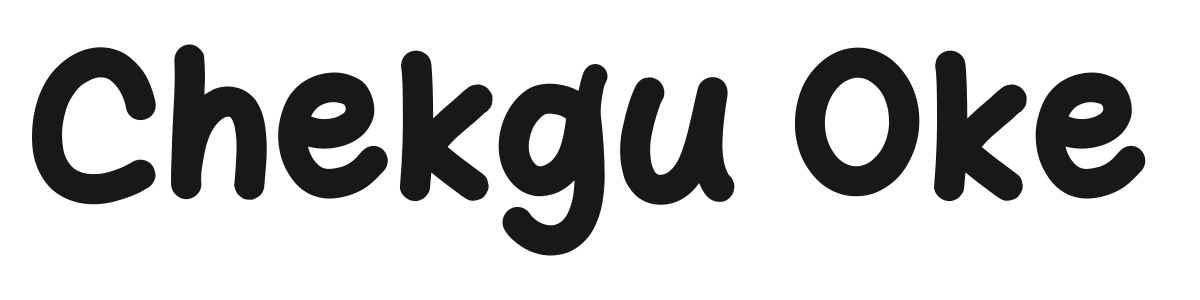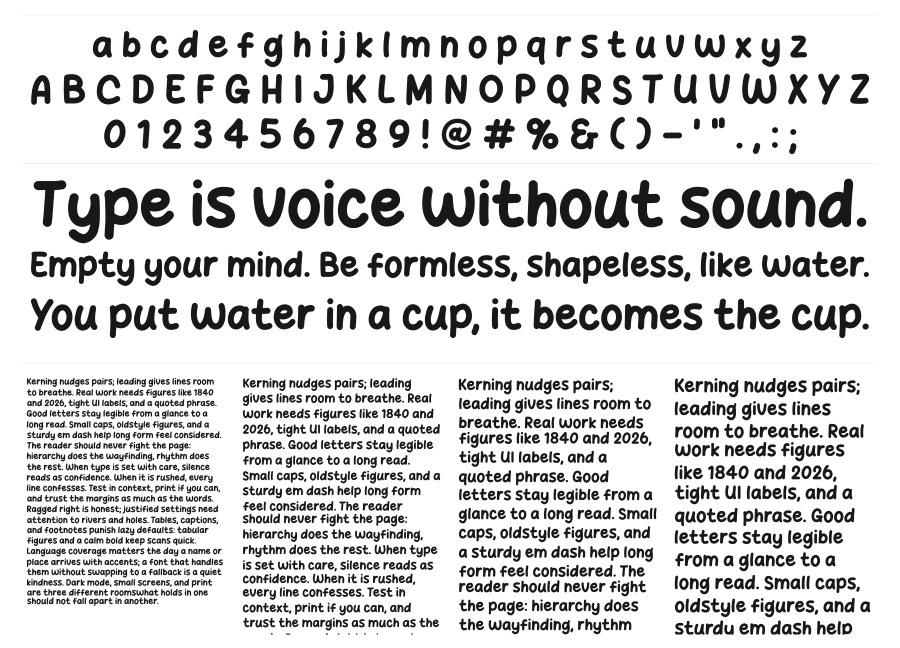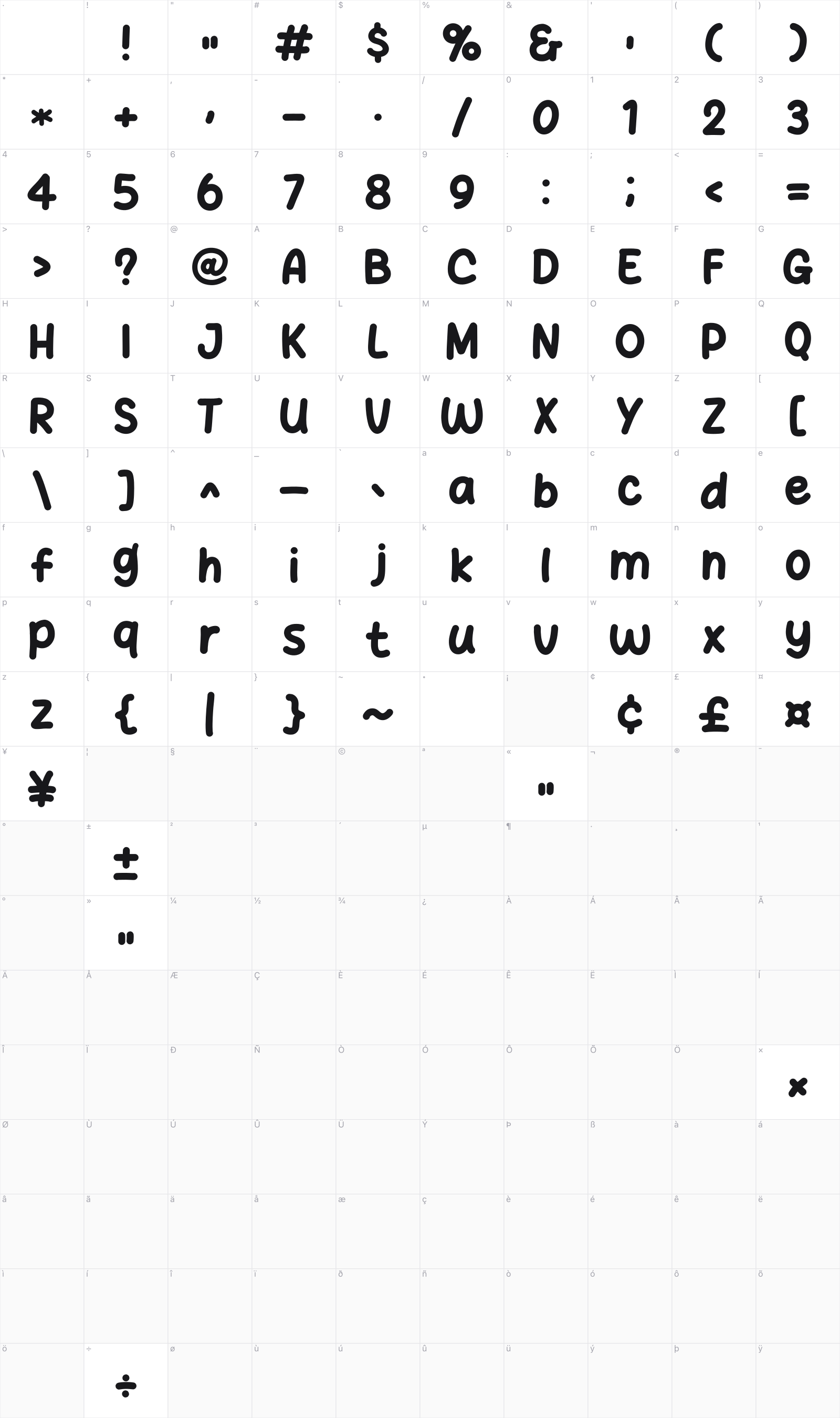
Chekgu Oke
Chekgu Oke is a bold rounded sans with thick, pillowy strokes and an easy-going hand-drawn energy. The wide proportions and soft terminals give it an approachable comic-book personality without feeling juvenile. Works well anywhere a design needs warmth and a little noise.